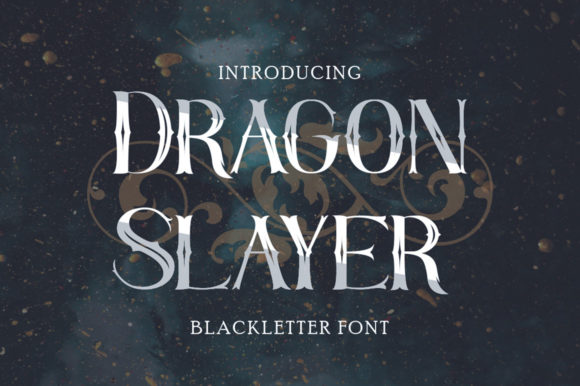
Looking for a unique, bold font that adds an assertive touch to your designs? Look no further than Dragon Slayer Font by Green Adventure Studio. This rough-textured blackletter font is the perfect choice for projects that require an old English aesthetic. With its striking, bold letters, Dragon Slayer will make a statement on any label or branding design.
Whether you're designing a logo, creating packaging for your products, or just looking to add some character to your website, Dragon Slayer is the perfect choice. Its rough texture adds an edgy, rebellious vibe to any project, making it perfect for brands that want to stand out from the crowd.
Dragon Slayer is also incredibly versatile, working well on a variety of backgrounds and color schemes. Its bold letters are easy to read and instantly recognizable, making it a great choice for any project that needs to make an impact.